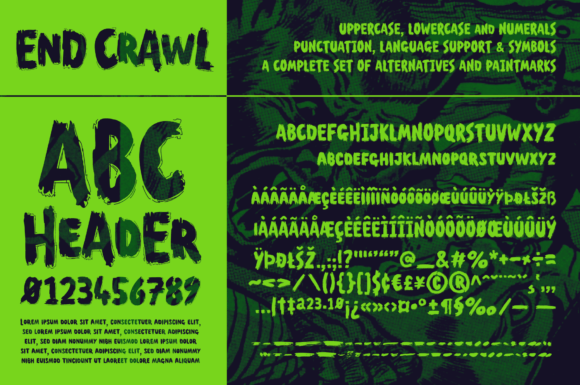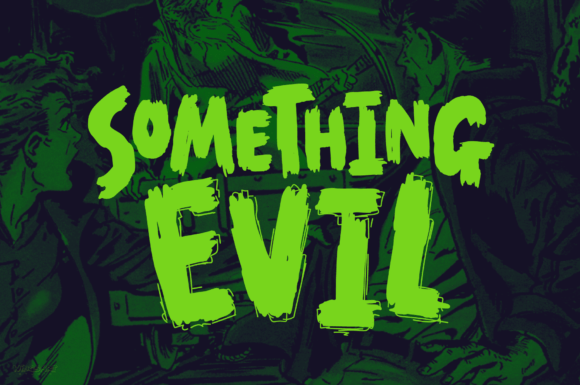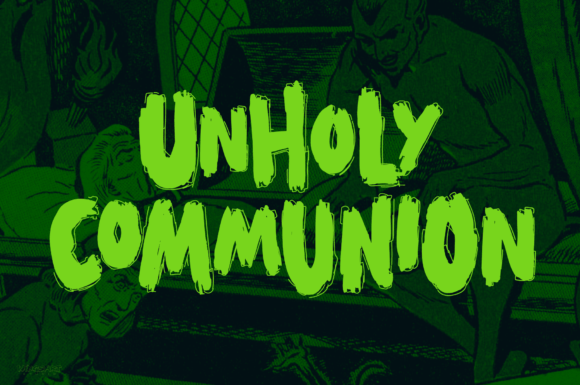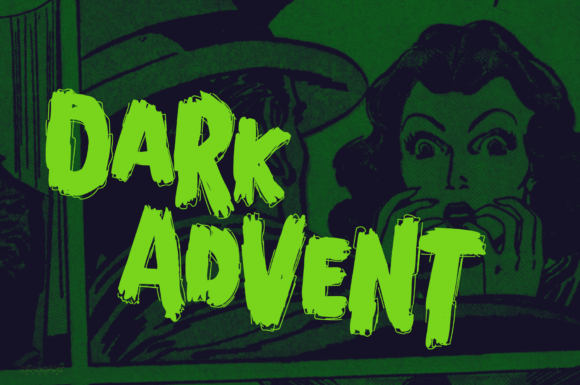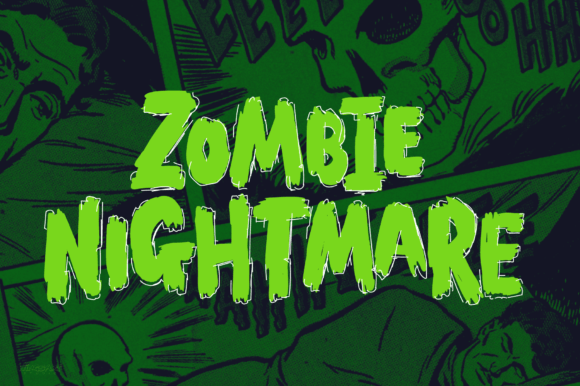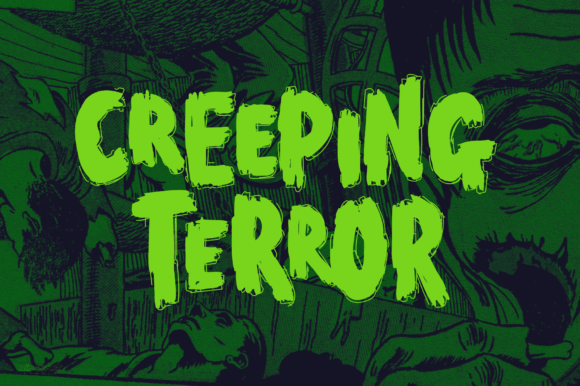
Introduction to End Crawl Font
Introducing a new creeping terror this Halloween, End Crawl is a hand-drawn brush font inspired by the gore-soaked horror movies and comic books of the 1970s and 80s.
This textured all-caps design evokes a nervous energy that will leave your readers frozen in suspense With a bold painted look surrounded by an anxious outline, it offers the tools to leave your readers stomach in knots.